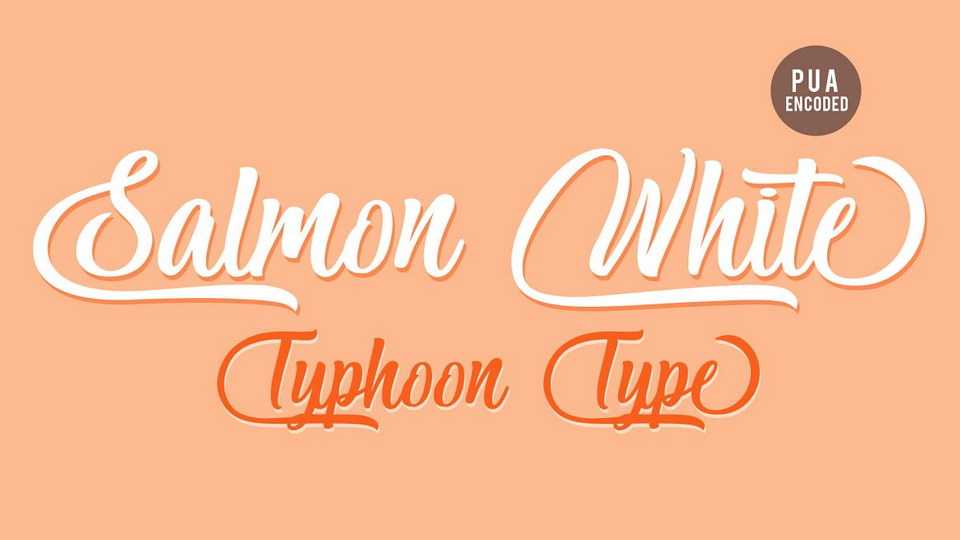
Download Salmon White font, a gorgeous modern calligraphy script with fancy swashes. Salmon White script is perfect for logos, name tag, advertising, product packaging, clothing, social media & greeting cards.
Designer: TyphoonType